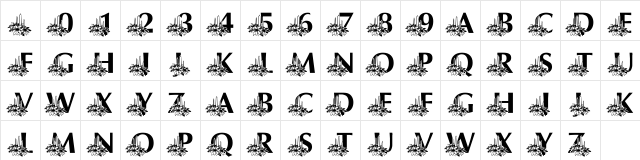
LMS Candle Lit Christmas Eve Regular
Design Context for LMS Candle Lit Christmas Eve Typeface
LMS Candle Lit Christmas Eve is a composed and adaptable typeface that performs quietly and consistently across a wide range of design contexts.